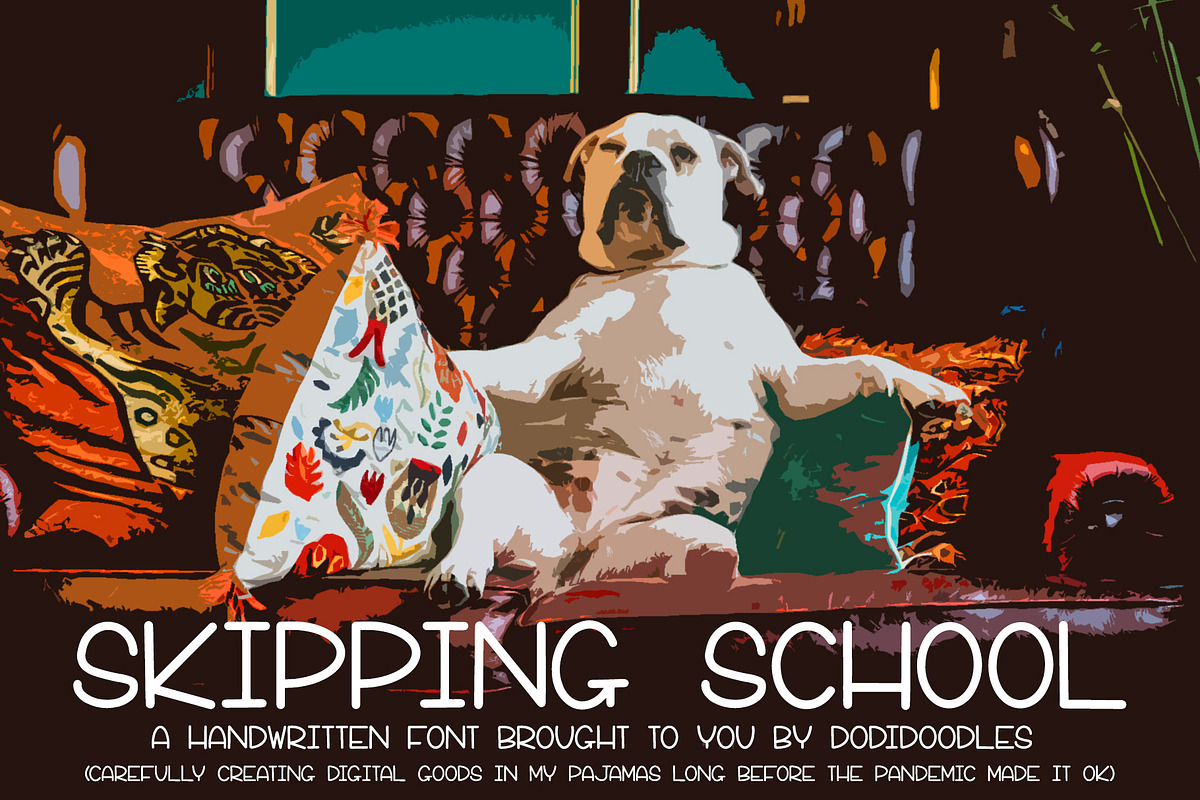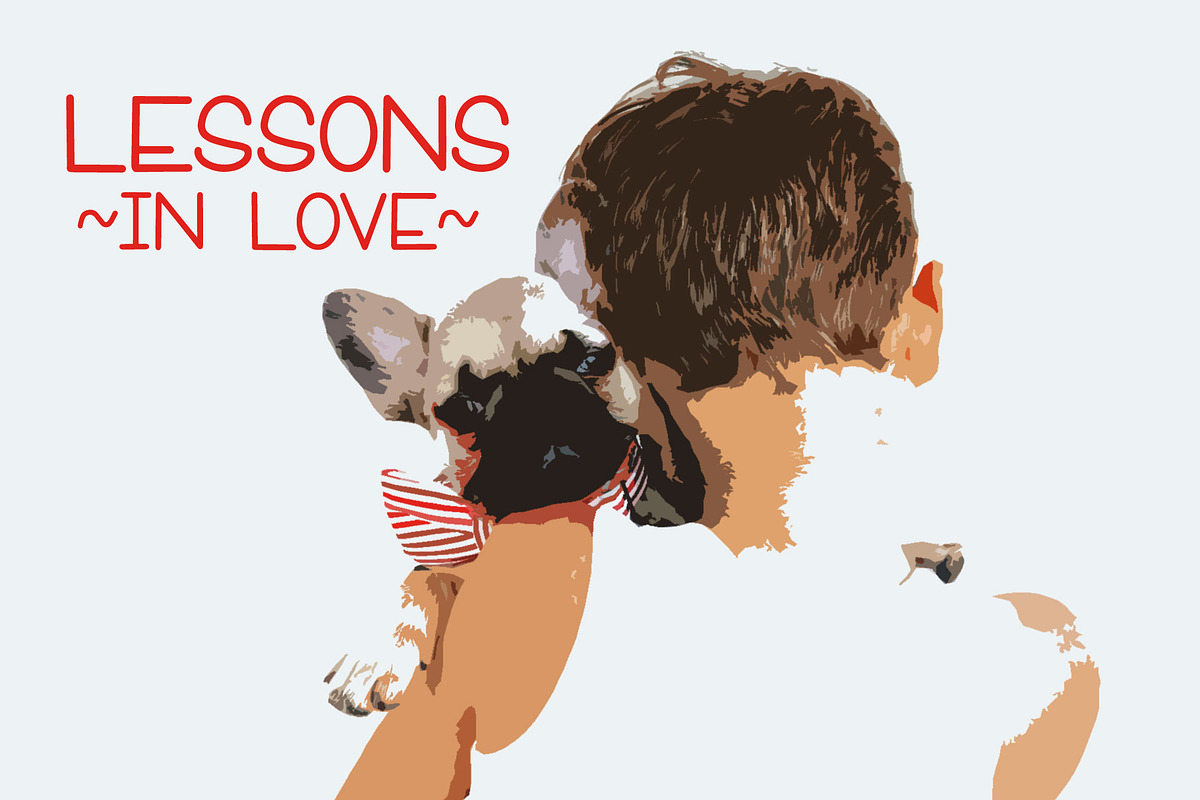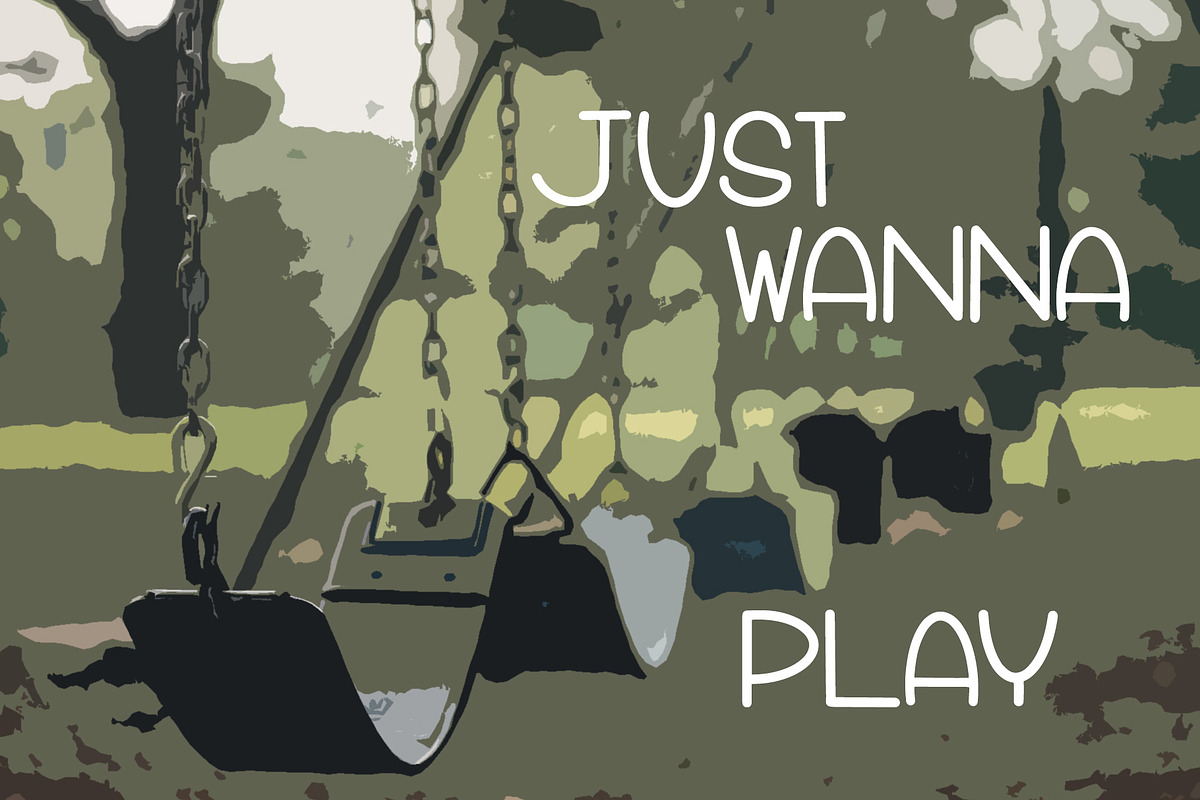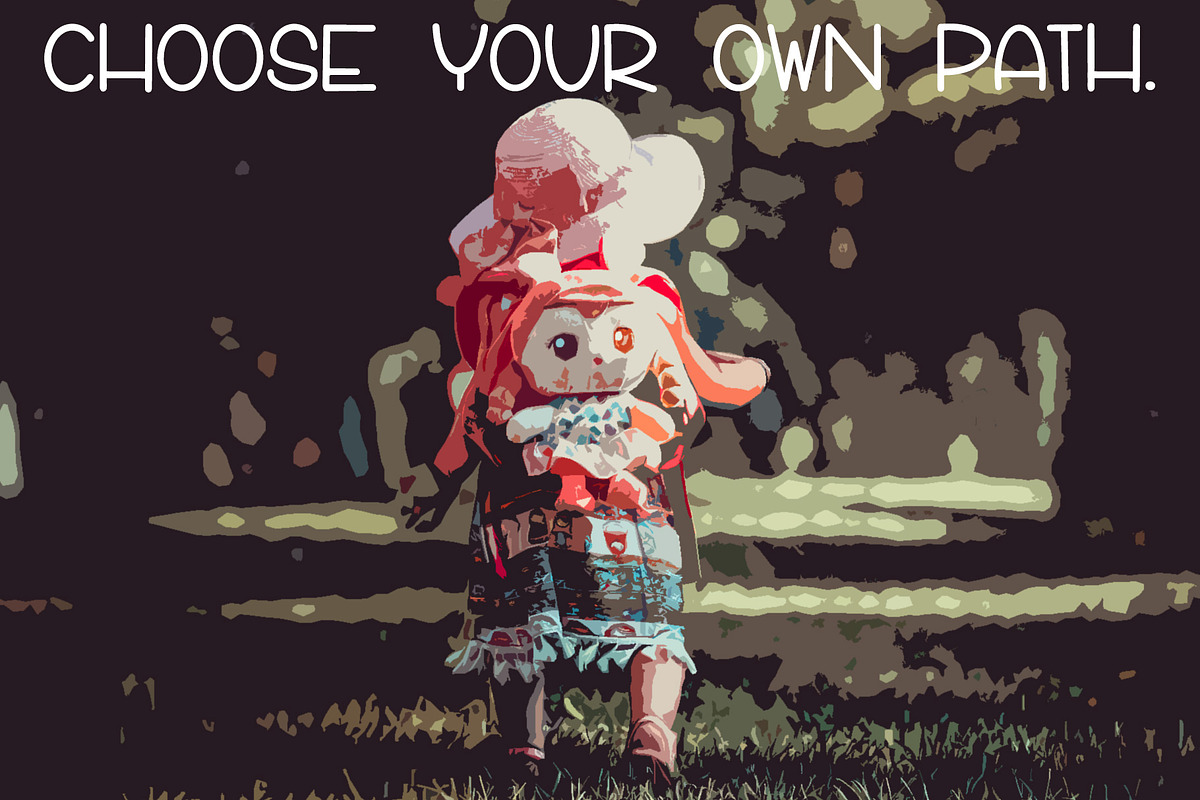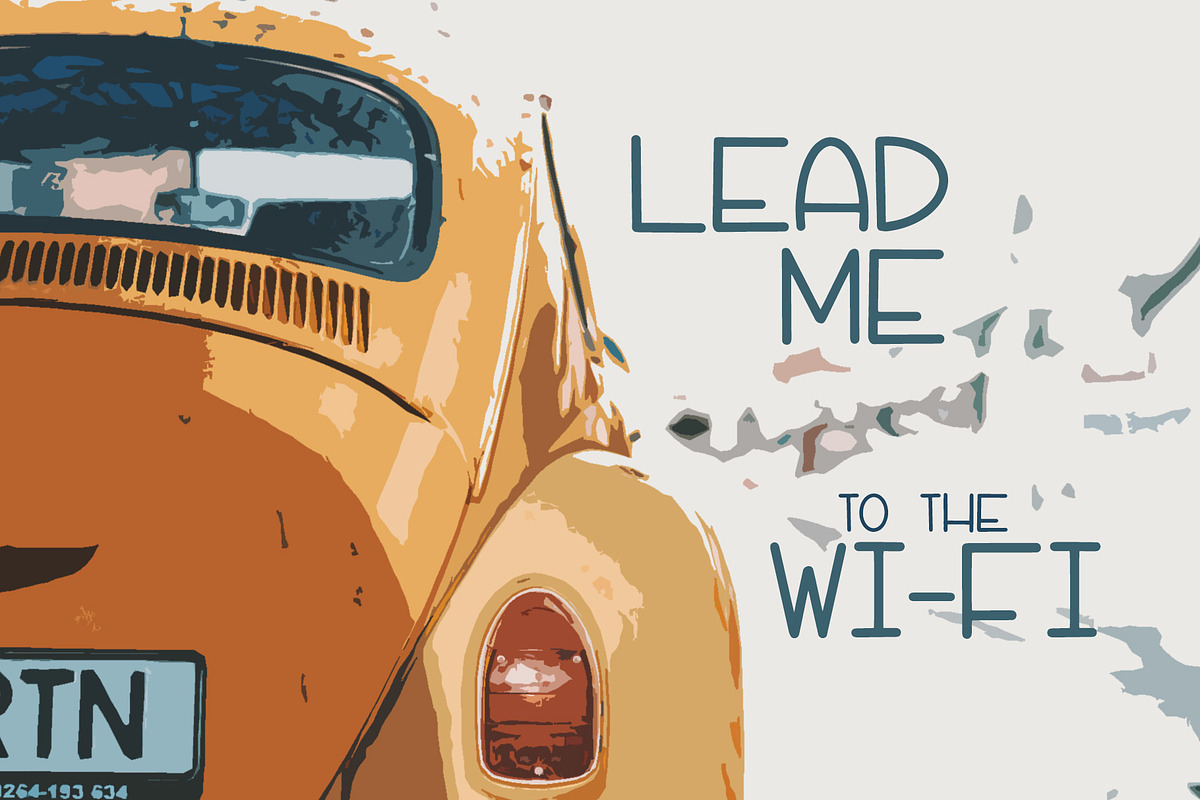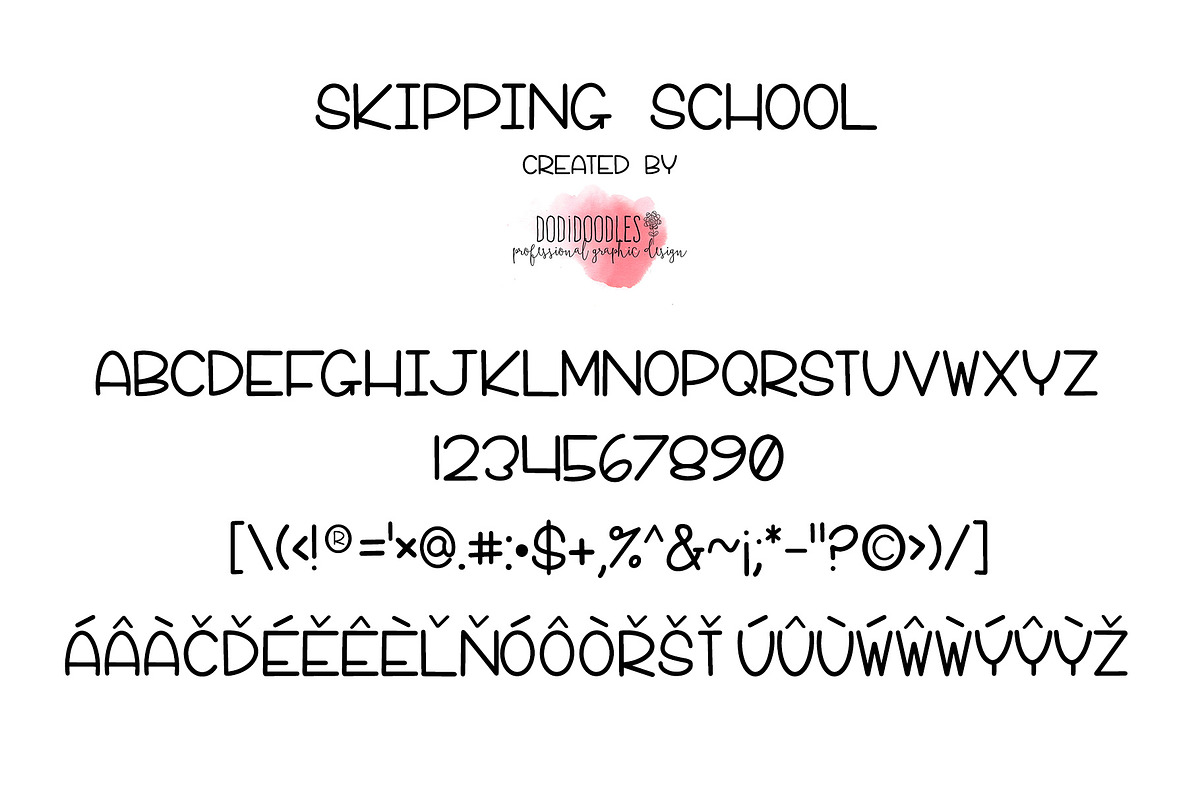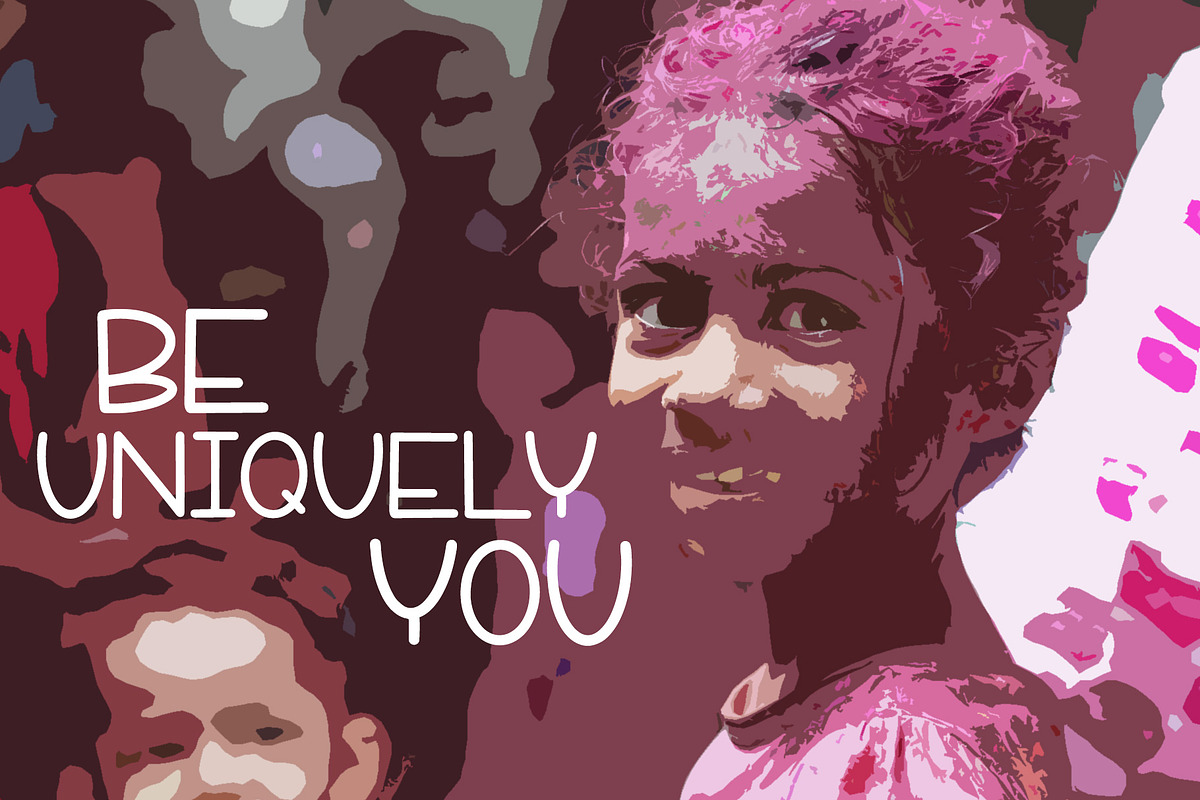
Skipping School is a unique handwritten all caps font. It is perfect for logos, books, cards, posters, printables-use it anywhere a fun and consistent look is needed!